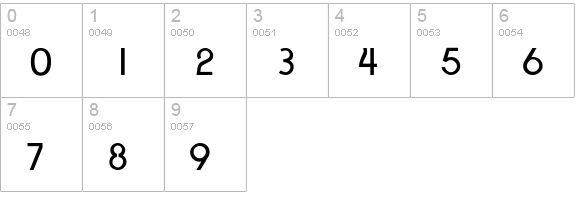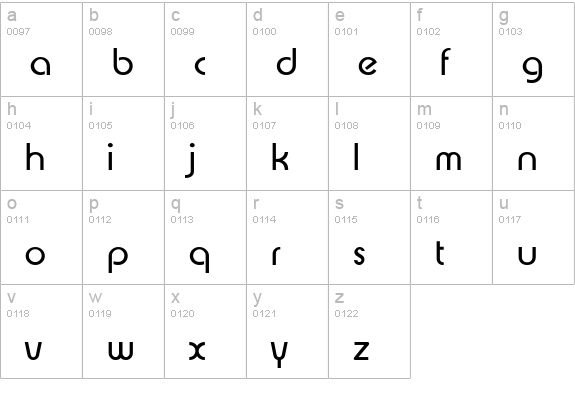
Xpressive font is a beautifully crafted typeface that exudes elegance and sophistication. Its sleek lines and stylish curves make it perfect for adding a touch of flair to any design project. This versatile font is suitable for a wide range of applications, from branding to editorial design. The best part? Xpressive font is completely free to download at FontsMarket.com. Now you can enhance your creative projects with this stunning typeface without having to worry about breaking the bank. Don't miss out on the opportunity to elevate your designs with the exquisite Xpressive font - download it today and let your creativity shine!